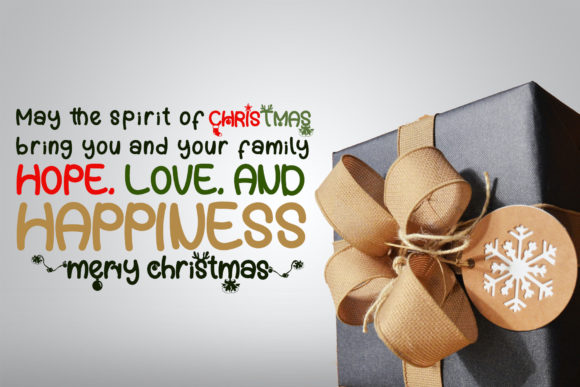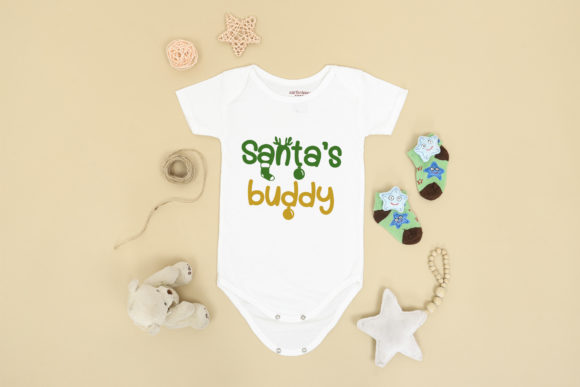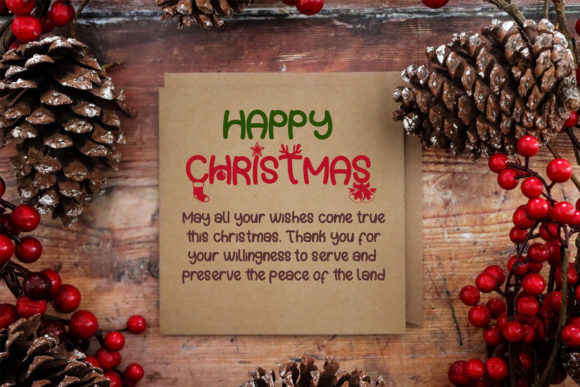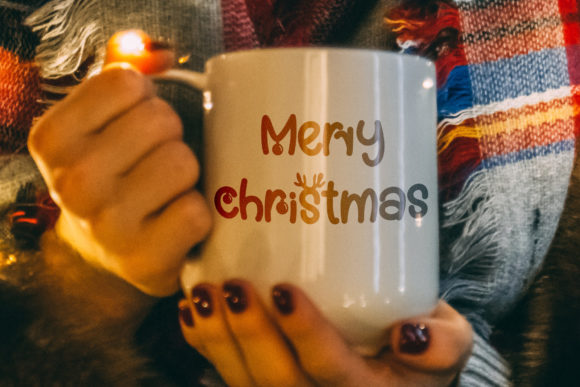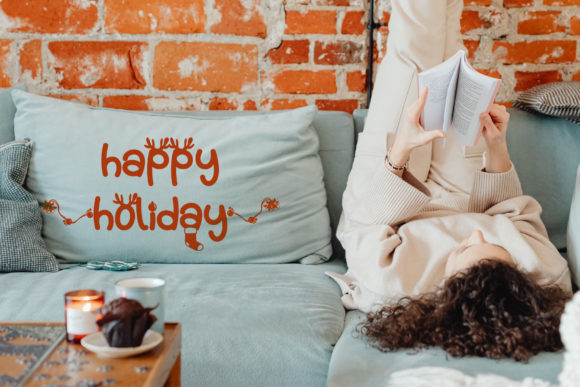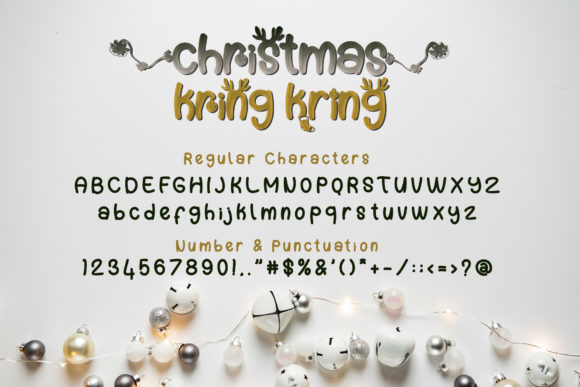
Introducing Christmas Kring-kring Font: A Festive Winter Wonderland Decorative Font
Are you looking for a font that captures the magic and joy of the Christmas season? Look no further than Christmas Kring-kring Font, a lovely, festive, and wintery decorative font that’s perfect for designers and crafters alike. With its PUA encoding, this font offers endless possibilities for creative expression, making it an ideal choice for a wide range of projects.
What Makes Christmas Kring-kring Font So Special?
Christmas Kring-kring Font is a beautifully designed font that’s specifically crafted to evoke the warmth and festivity of the Christmas season. Its intricate details and ornate swashes make it perfect for creating eye-catching headings, titles, and graphics that are sure to add a touch of holiday cheer to any project.
One of the standout features of Christmas Kring-kring Font is its PUA (Private Use Area) encoding. This means that you can access all of the glyphs and swashes with ease, giving you complete creative control over your designs. Whether you’re looking to create a festive holiday card, a winter wonderland-themed poster, or a set of Christmas-themed stickers, this font has got you covered.
The only limit to what you can create with Christmas Kring-kring Font is your imagination! With its extensive range of glyphs and swashes, you can experiment with different combinations to create truly unique and eye-catching designs. Whether you’re a seasoned designer or a crafter looking for a fun and creative outlet, this font is sure to inspire.
Here are just a few ideas to get you started:
- Create a festive holiday card or invitation with a personalized message
- Design a winter wonderland-themed poster or flyer for a holiday event
- Make a set of Christmas-themed stickers or washi tape for your craft projects
- Develop a custom Christmas cookie jar label or gift tag
Why Designers and Crafters Love Christmas Kring-kring Font
Christmas Kring-kring Font is a versatile and fun font that’s perfect for designers and crafters who want to add a touch of holiday magic to their projects. Here are just a few reasons why:
- Easy to use: With its PUA encoding, you can access all of the glyphs and swashes with ease, making it simple to create stunning designs
- Highly customizable: Experiment with different combinations of glyphs and swashes to create truly unique designs
- Festive and fun: Add a touch of holiday cheer to your projects with this beautifully designed font
- Perfect for a range of projects: From holiday cards and posters to stickers and craft projects, this font is versatile enough to use in a wide range of applications
| Font Name | Christmas Kring-kring Font |
| Author | tinyhandletter |
Whether you’re a seasoned designer or a crafter looking for a fun and creative outlet, Christmas Kring-kring Font is sure to inspire. So go ahead, get creative, and make this holiday season one to remember!